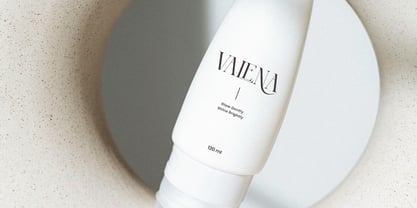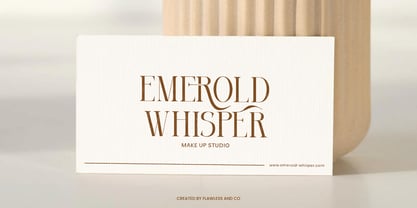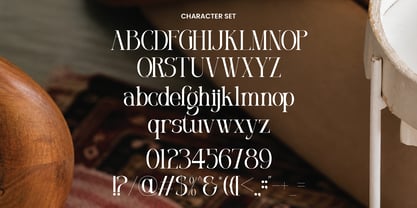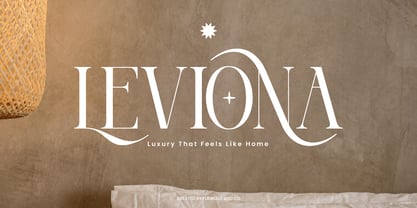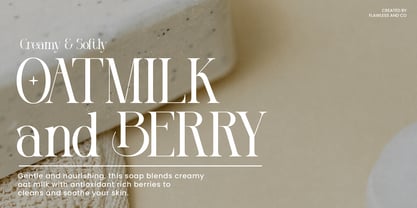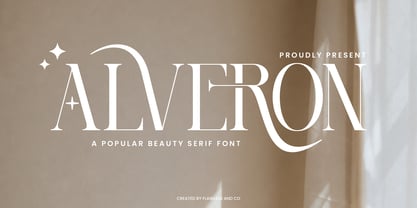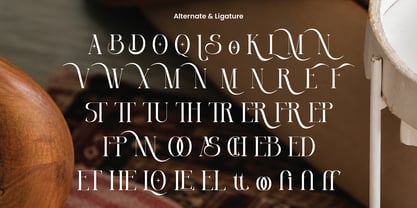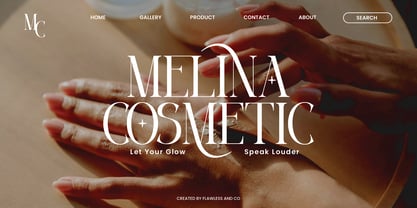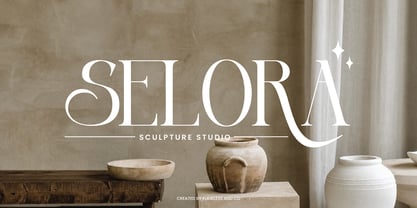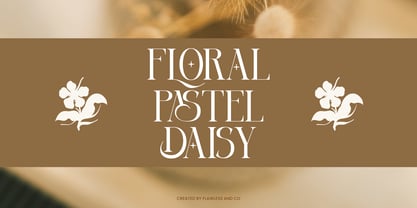
Alveron
Alveron a modern serif typeface designed to bring elegance, sophistication, and confidence to your designs. With its refined contrast, sharp serifs, and graceful curves, this font strikes the perfect balance between classic beauty and contemporary style. Crafted with versatility in mind, this font is perfect for branding, editorial design, packaging, logo design, and wedding invitations. Its stylish alternates and elegant ligatures allow for endless creative combinations that will elevate any visual presentation.
Features :
Multilingual, Uppercase alphabet A-Z, Lowercase alphabet a-z, Numbers 0-9, Some punctuation, Alternates & Ligatures